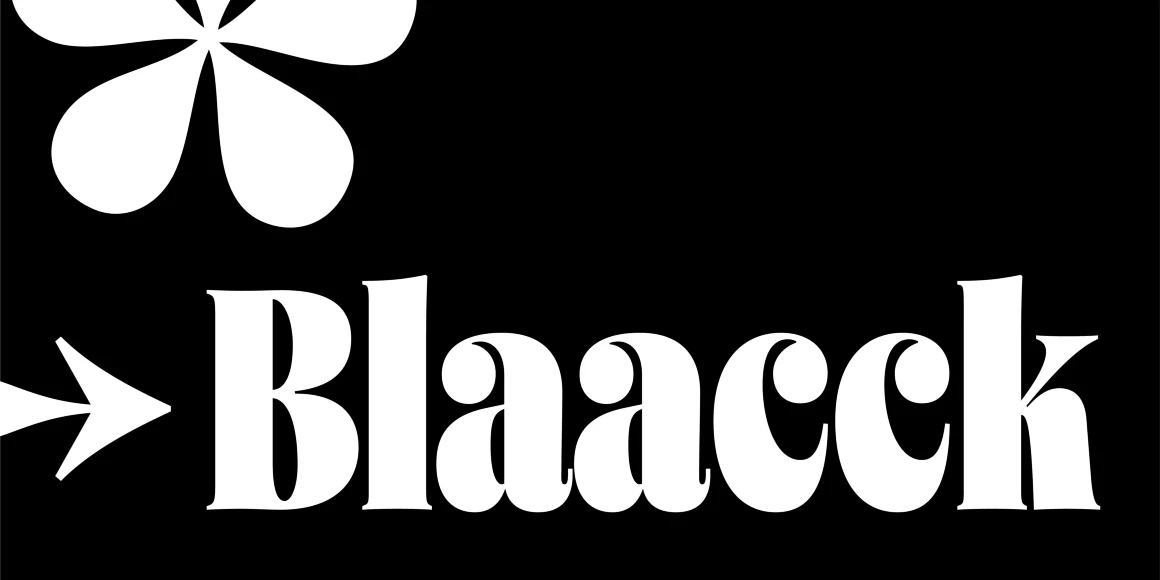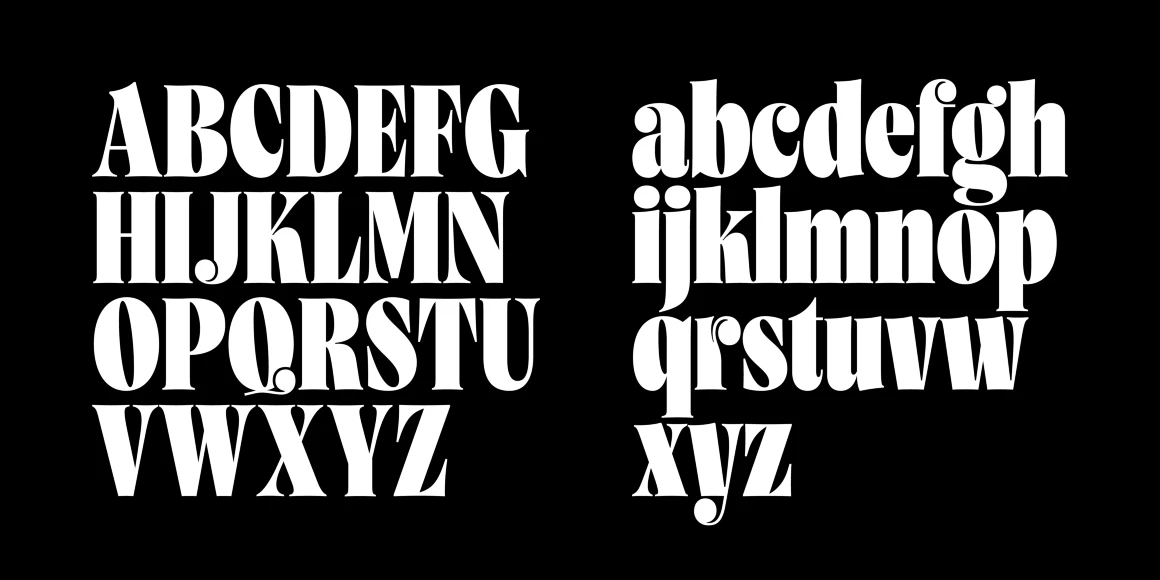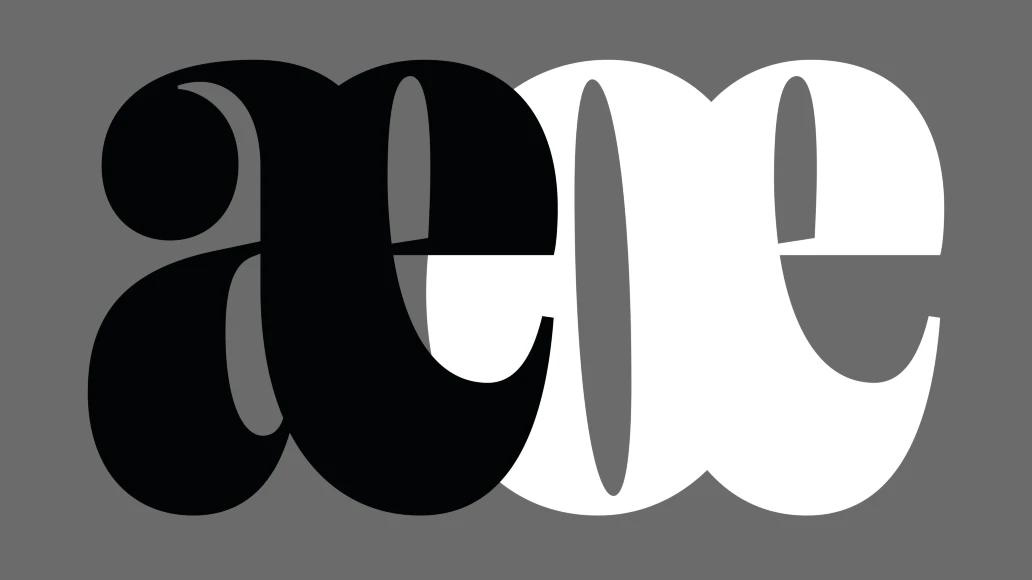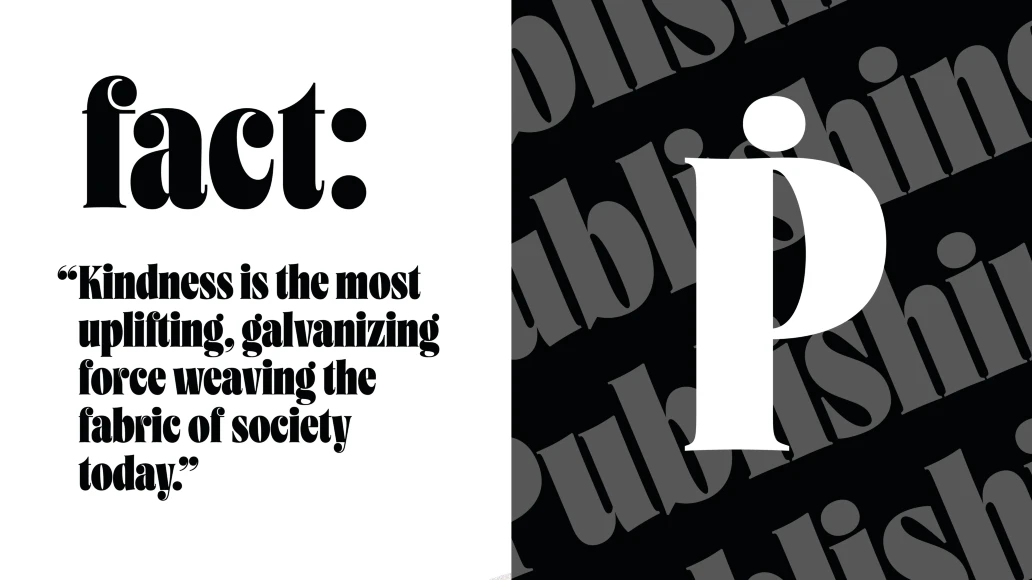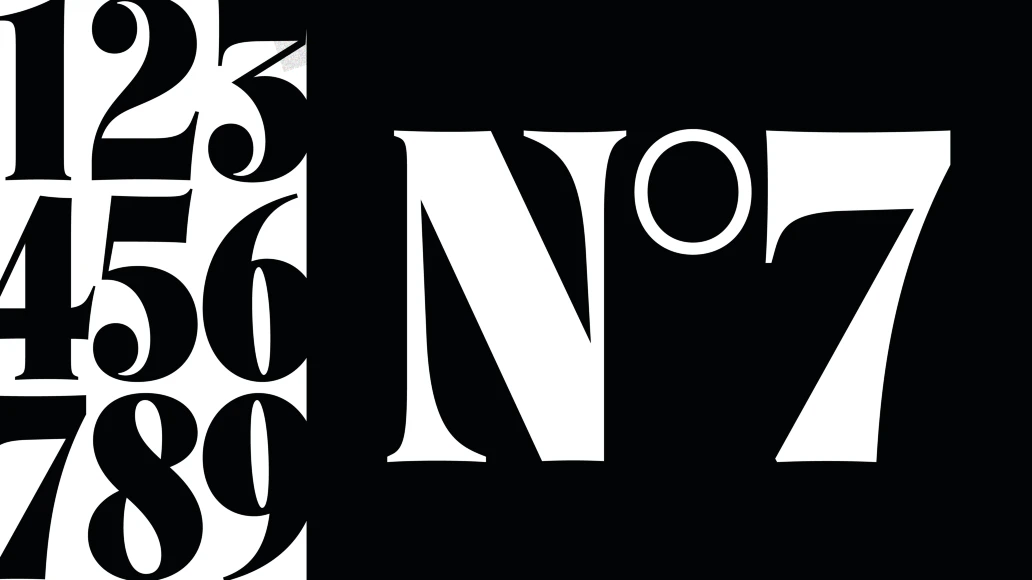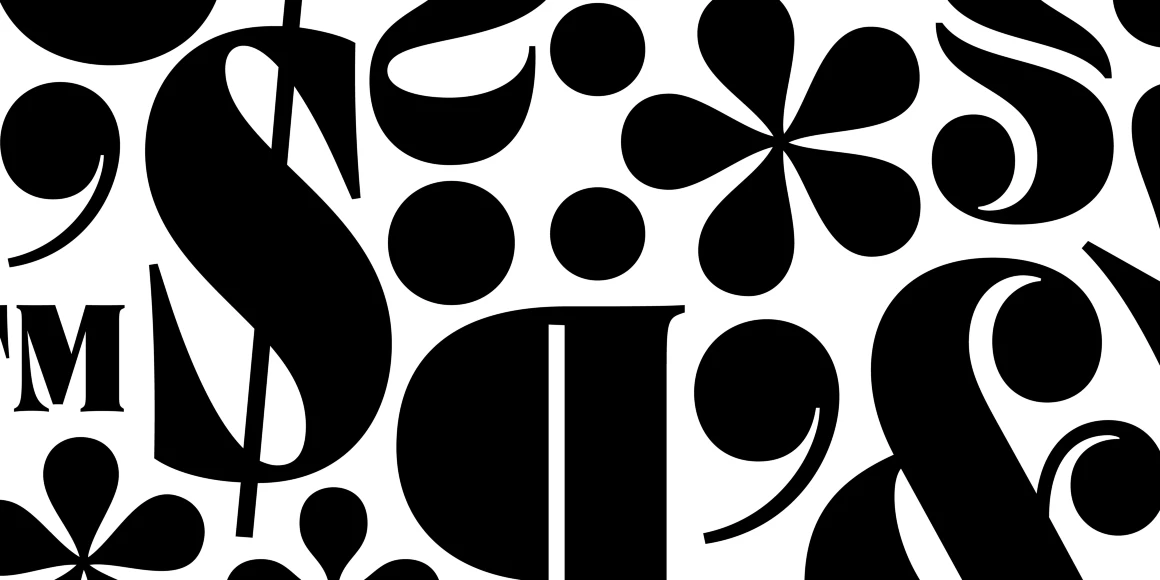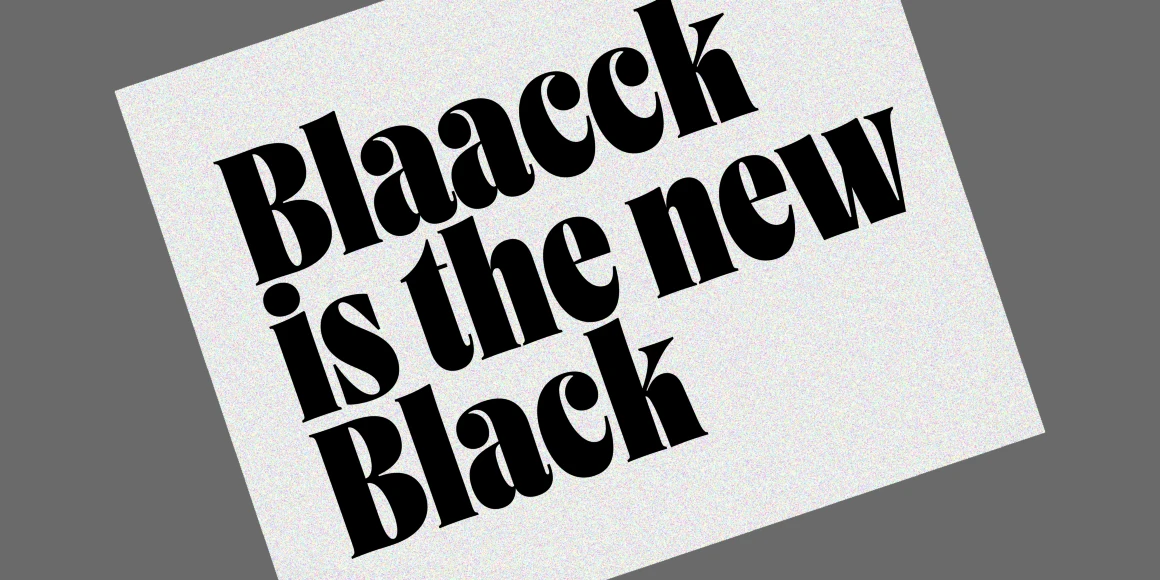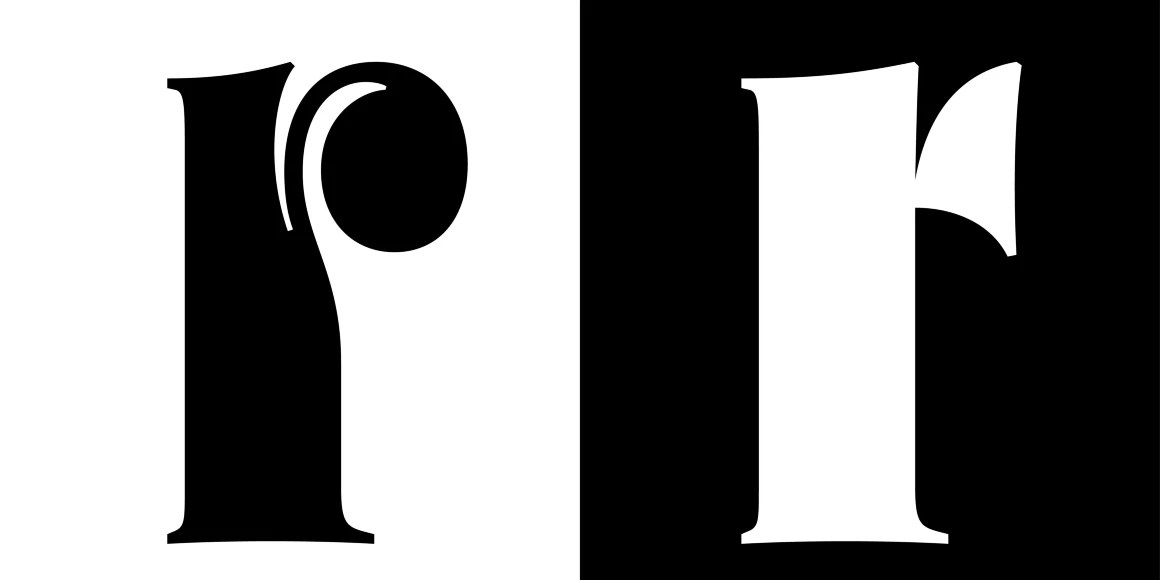
Blaacck
By Jérémie Hornus & Solenn Bordeau
Blaacck Poster
Blaacck is a distinctively condensed display serif created for Aaron Levin and the AACC rebrand by Black[Foundry]. Based on Vesterbro Poster, the typeface was enhanced with ball terminals, tighter spacing, and increased contrast while retaining boldness. Inspired in part by Herb Lubalin, it includes ligatures, ornamental punctuation, and features a tall x-height and thin accents for super-compact typesetting. It also has a set of arrows, alternates, and fractions. Blaacck is made for striking headlines!